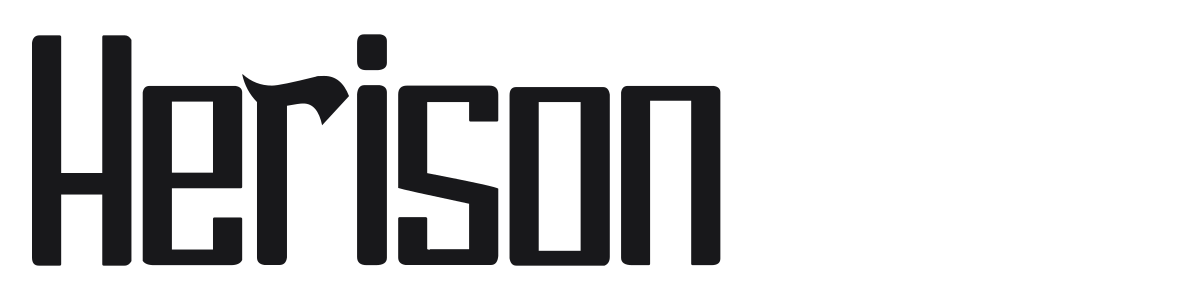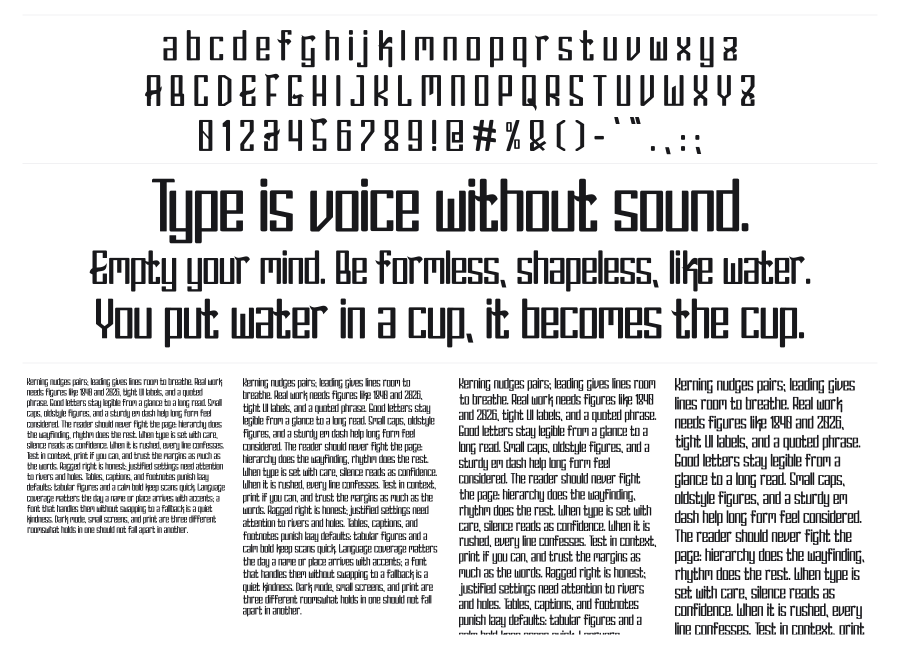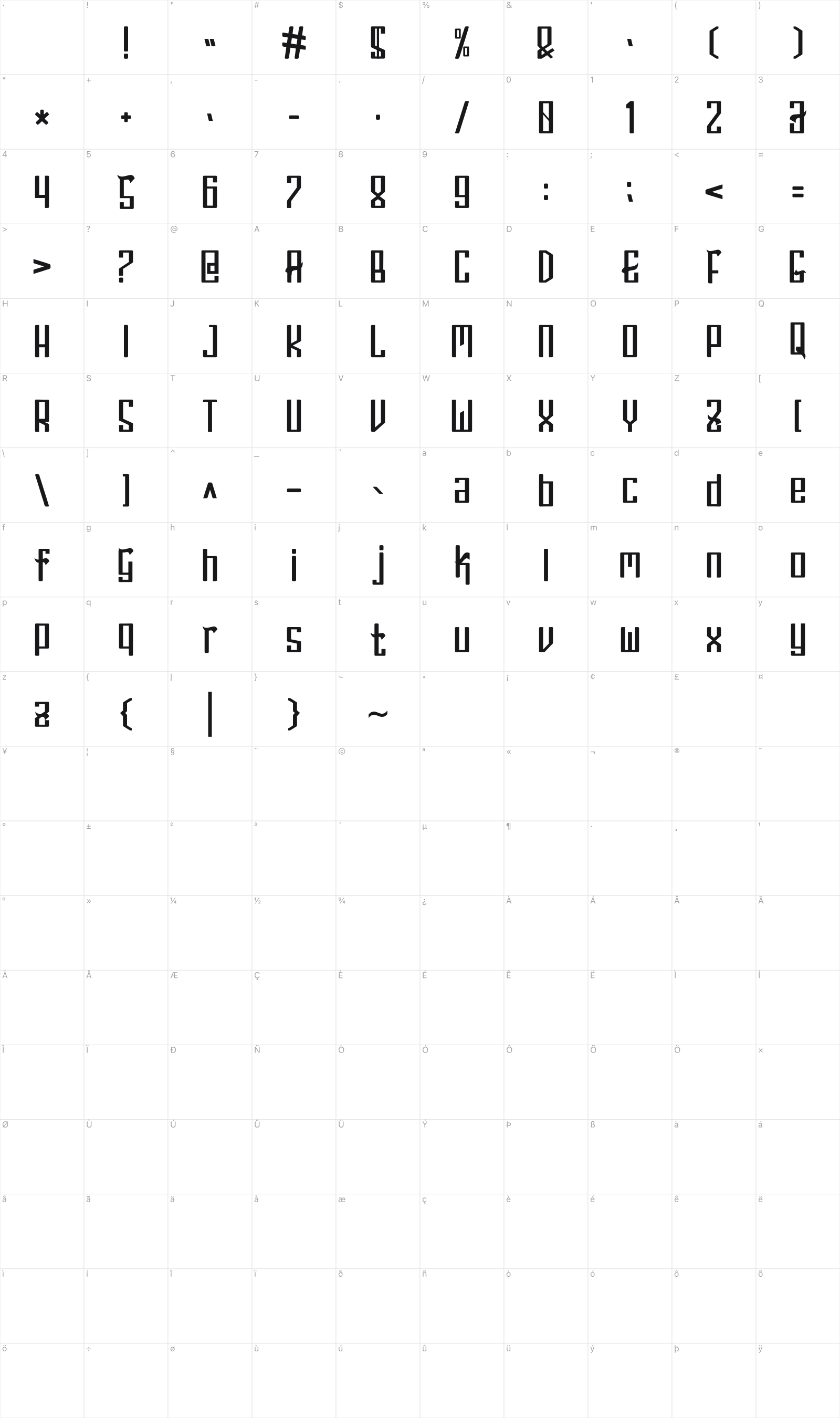
Herison
by Dumadi Studios
Herison is a heavy condensed geometric sans with squared strokes and sharp notched cut-ins at key junctions. The angular interruptions give it a raw, almost industrial quality that sits somewhere between 1970s countercultural typography and contemporary streetwear aesthetics. Strong at large sizes where those structural details can breathe.